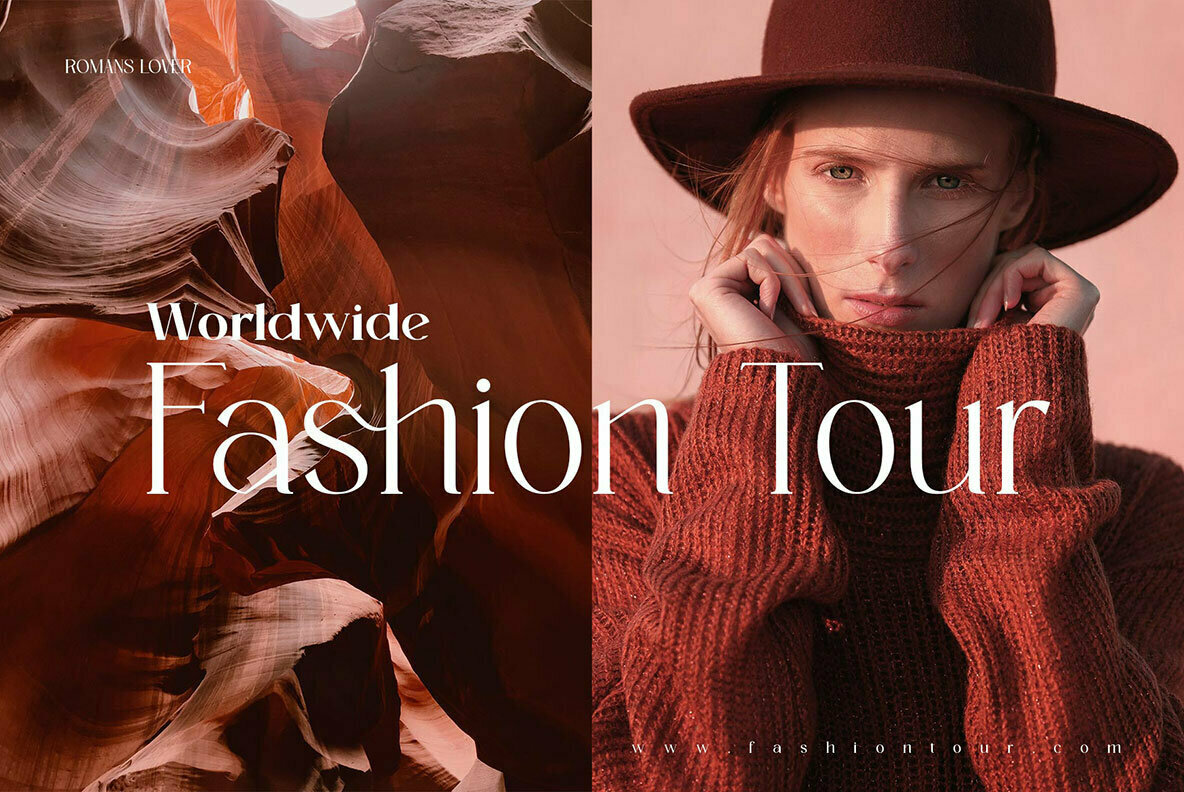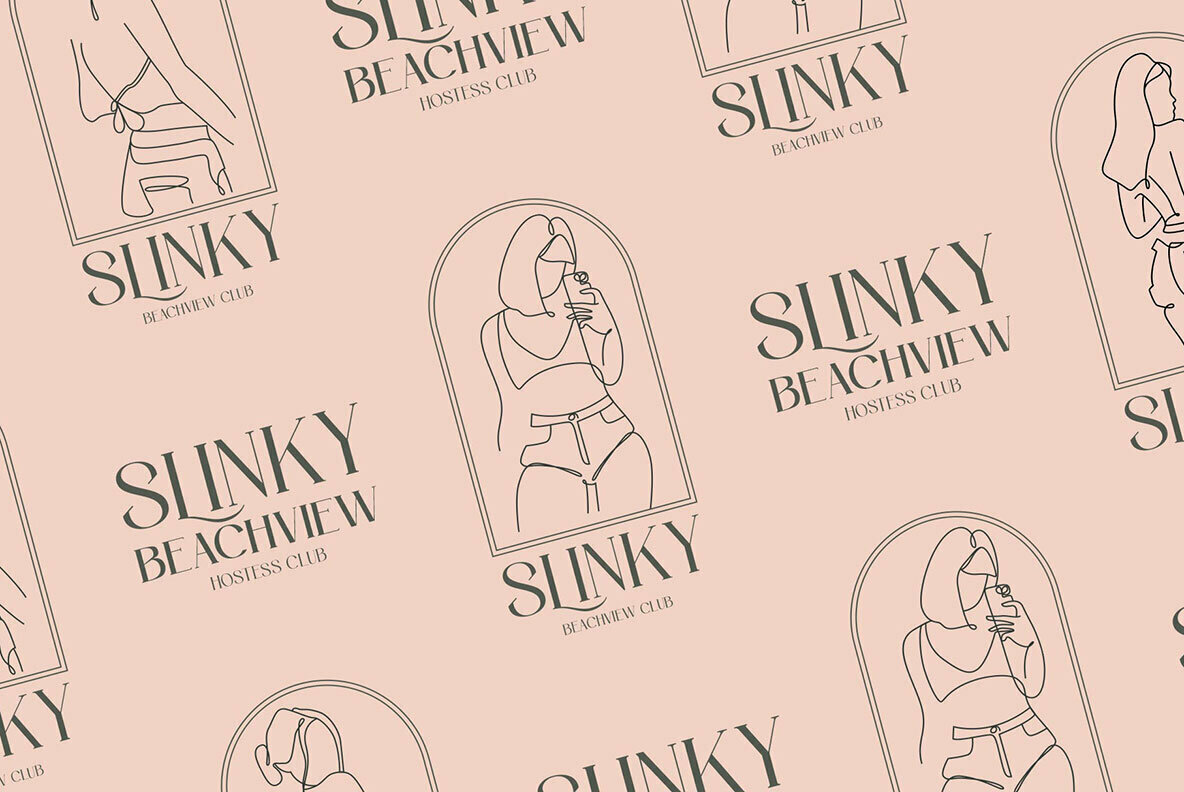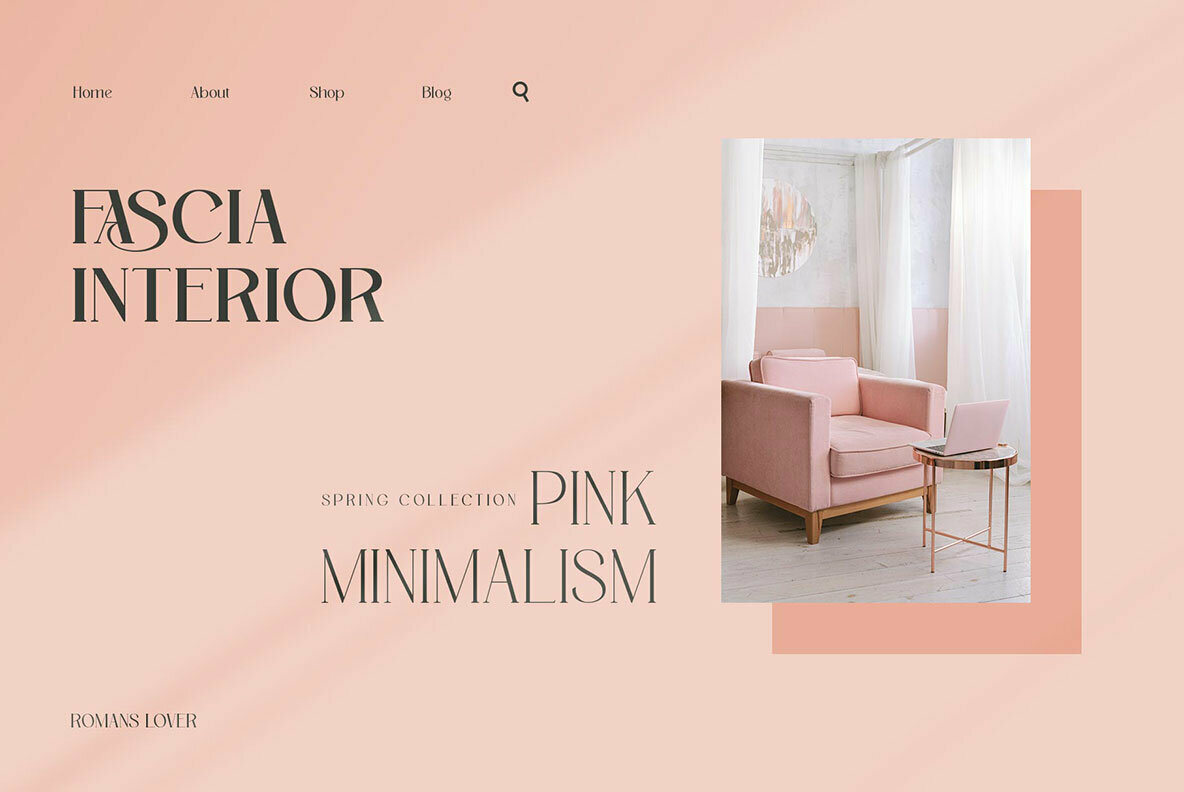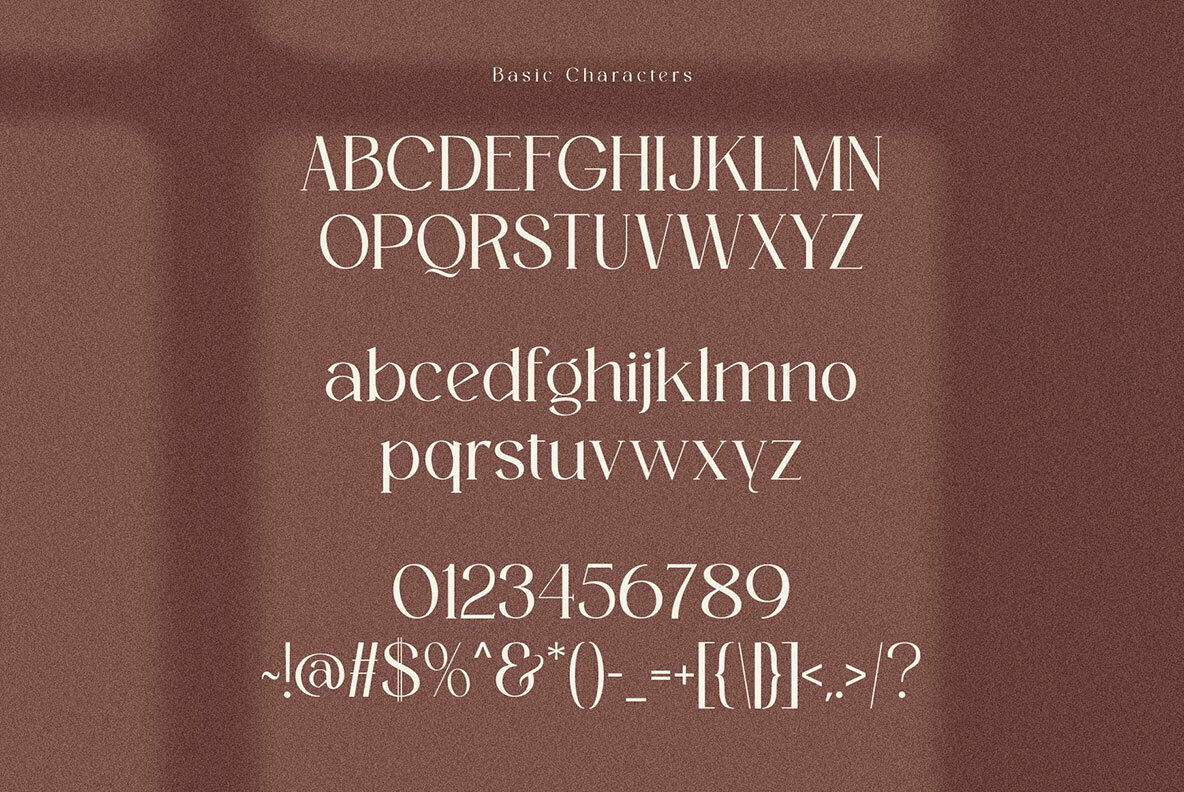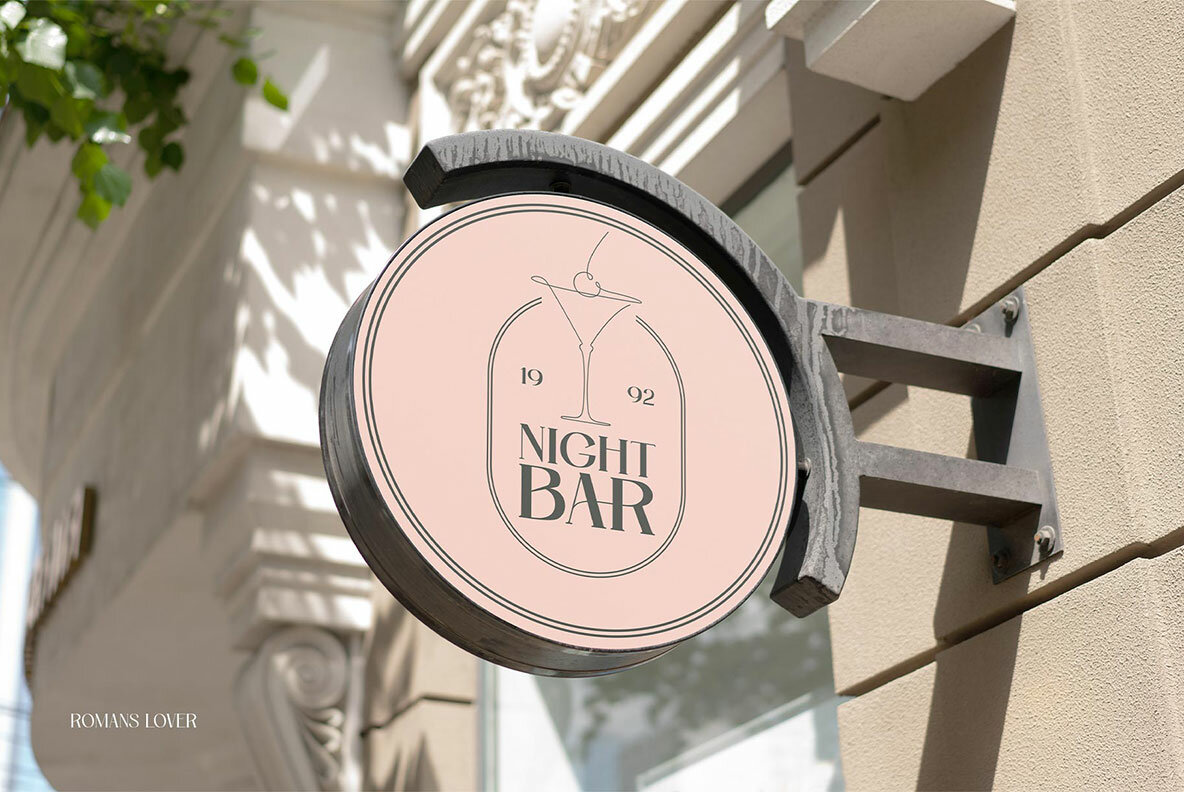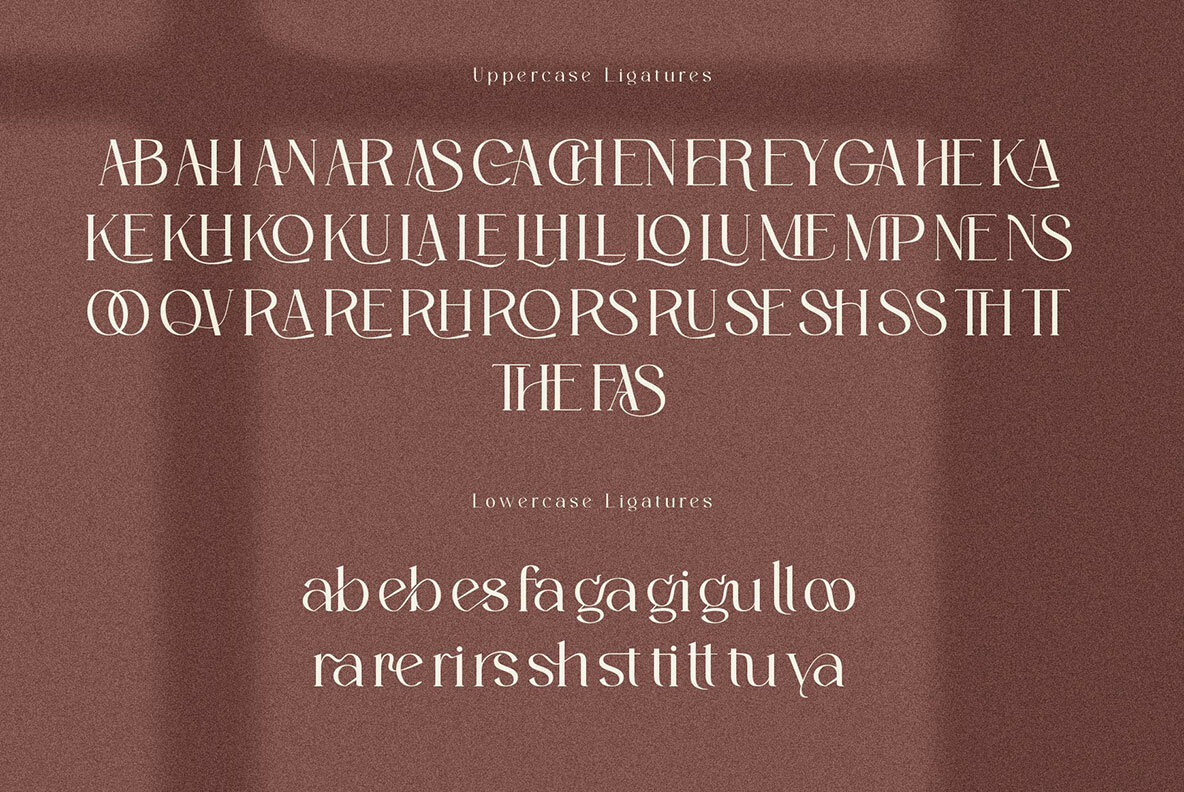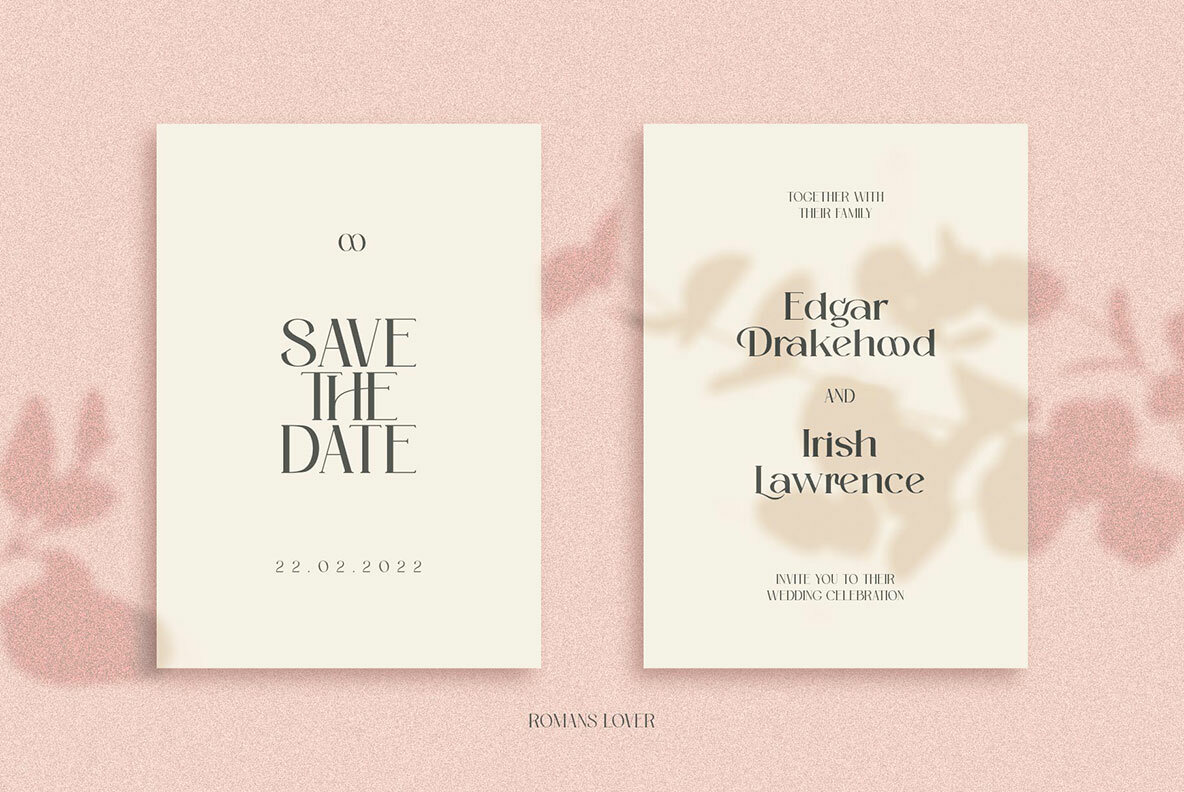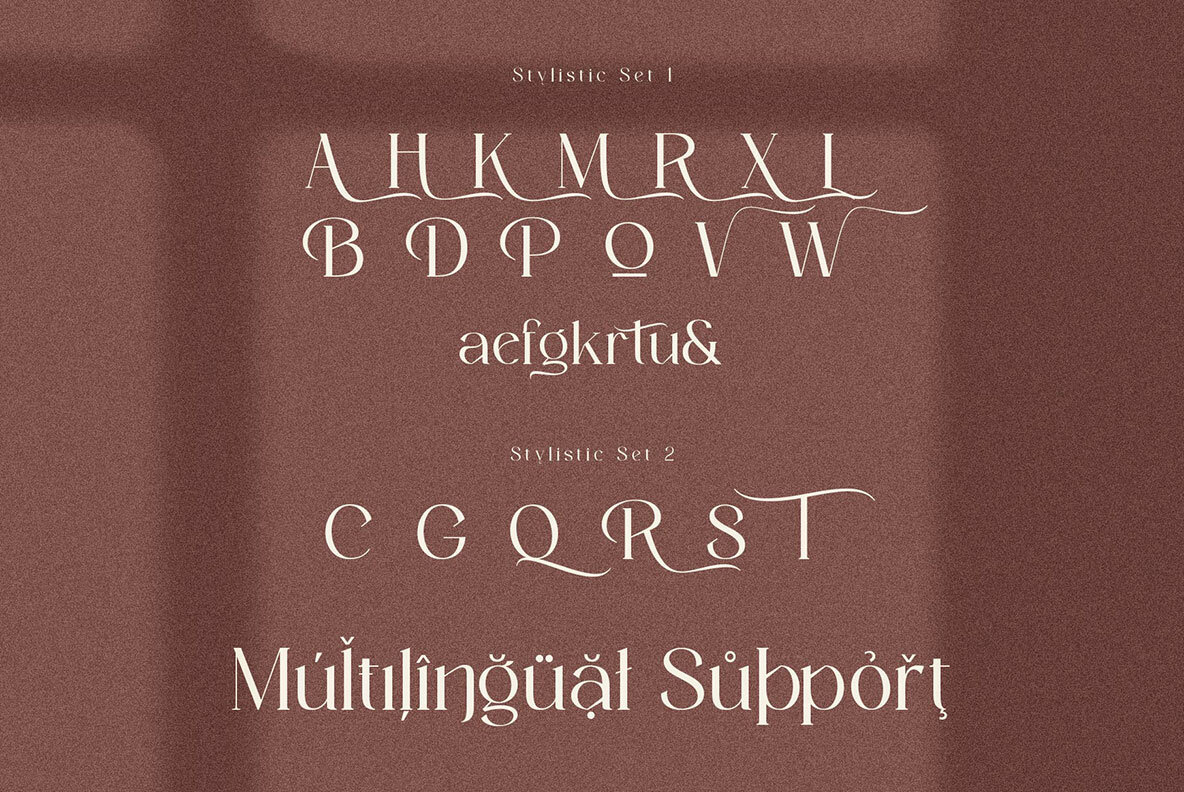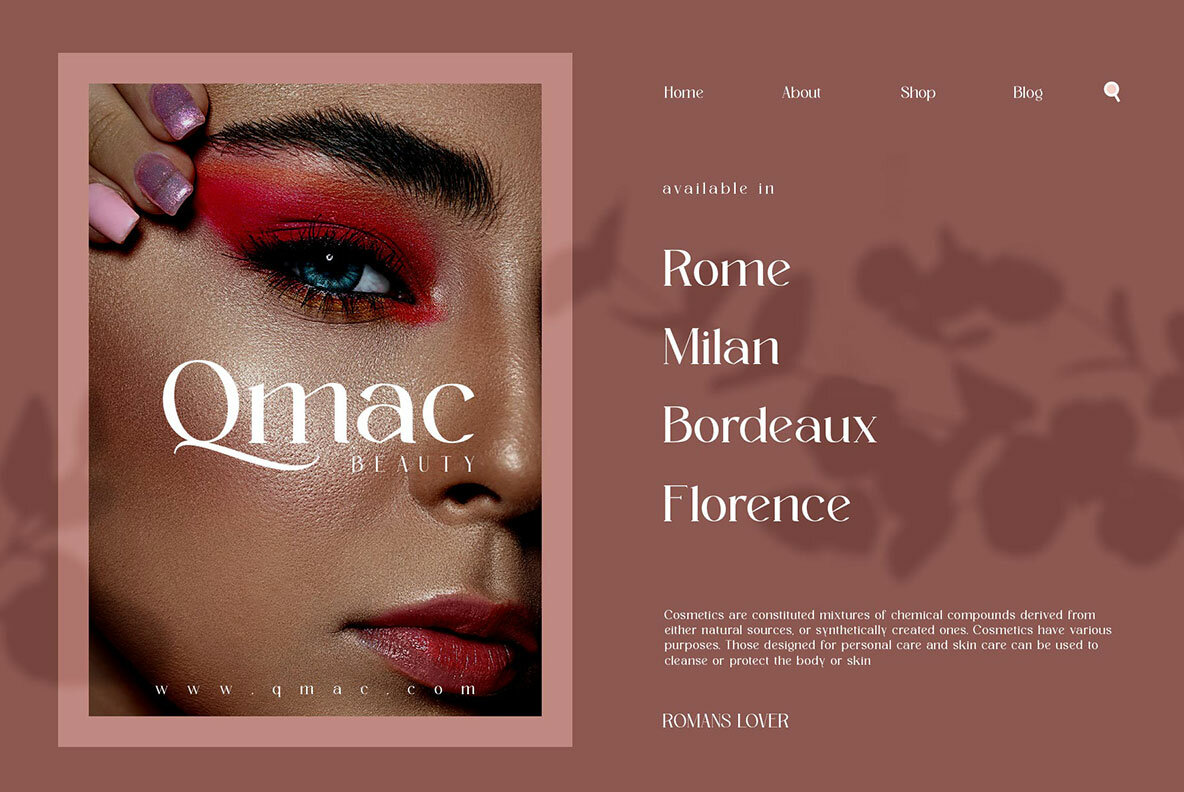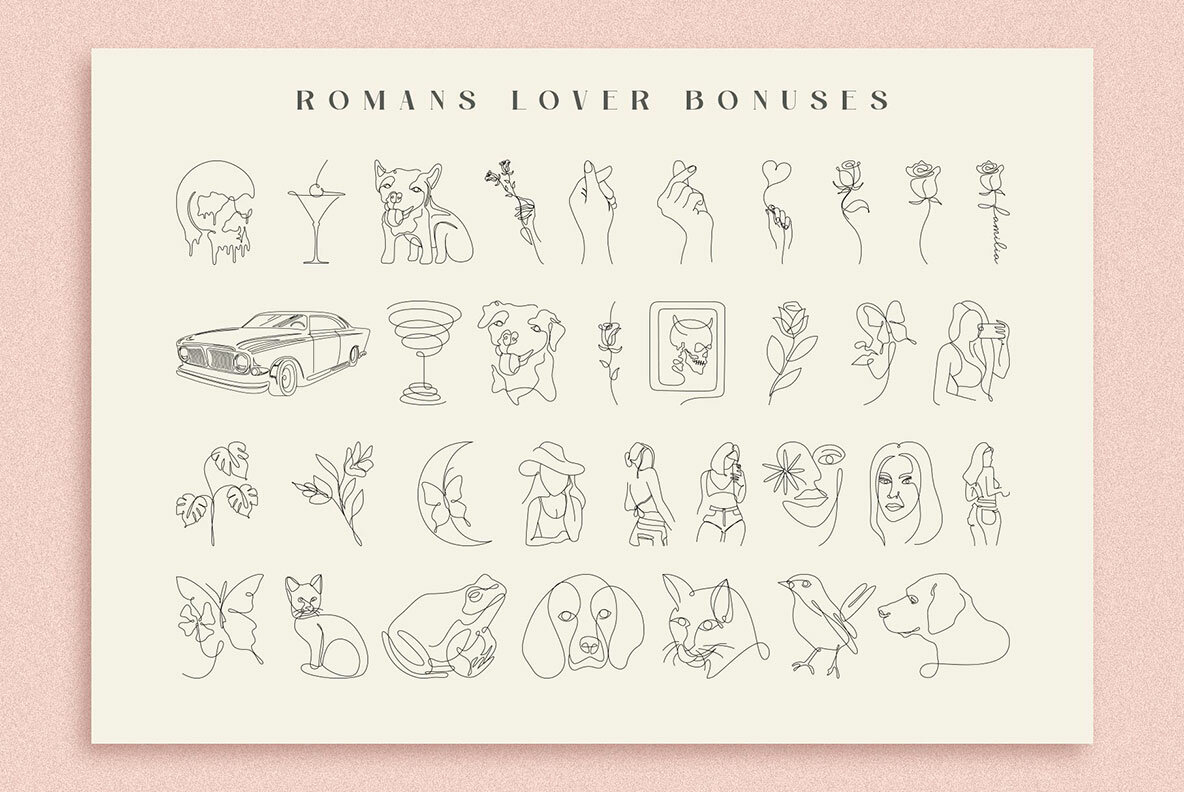
Romans Lover Font
Romans Lover Elegant typeface + Bonus Boho Illustrations
The Romans Lover Serif typeface is an elegantly themed font that has a dynamic serif style. The details of the shape of the "Romans Lover Serif Elegant typeface" are very smooth and flow to create unique and beautiful curves. Elegant Serif typefaces such as “Romans Lover Serif Elegant typeface” are very easy to apply to any design, especially those with an elegant and smooth concept, besides that this font is very easy to use both in design and non-design programs because everything changes and glyphs are supported by Unicode (PUA).
The Romans Lover Serif Elegant typeface contains 573 glyphs with many unique and interesting alternative options. Plus, there's a cool serif font family for header and description text from Thin to Heavy. In the poster preview all the letters are in the Romans Lover Serif Elegant typeface.
Bonus 62 Boho outline illustration unique using format font.